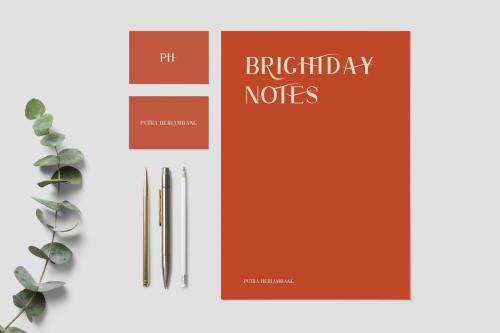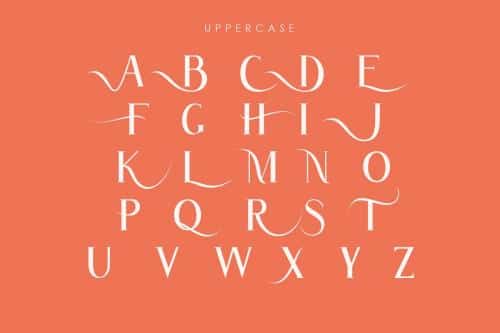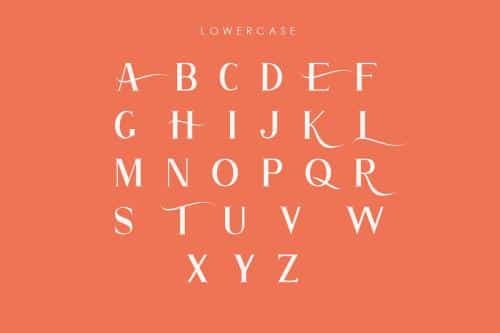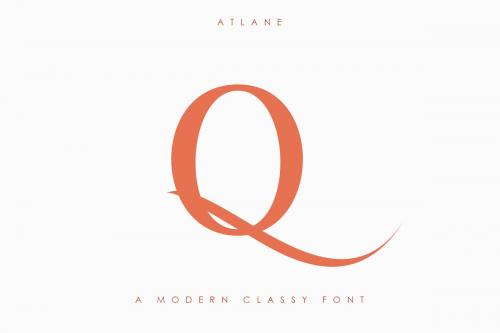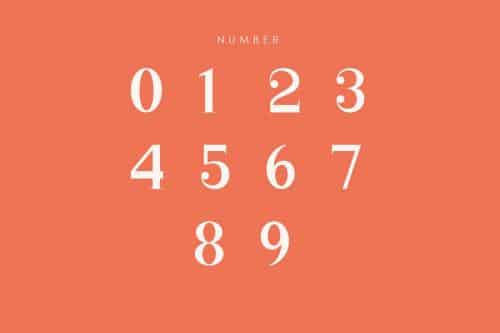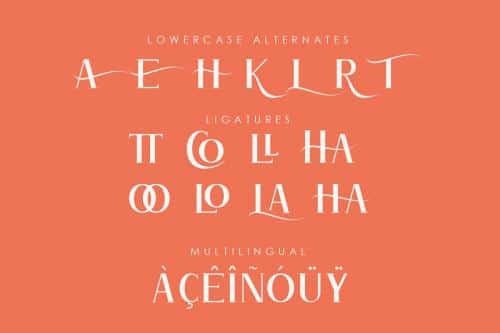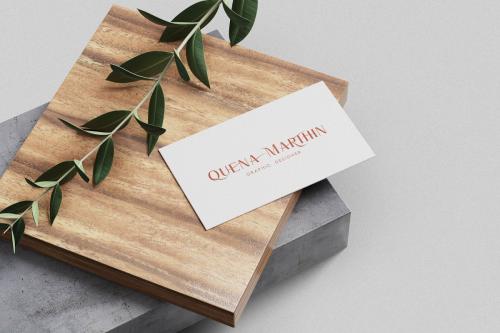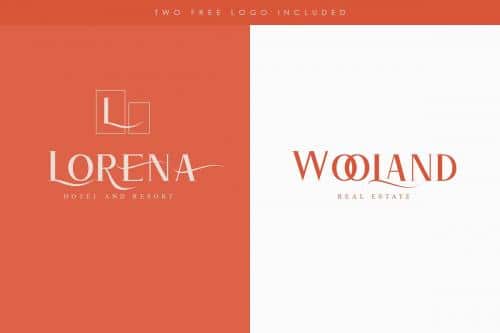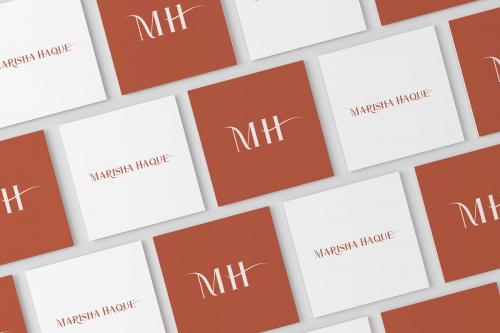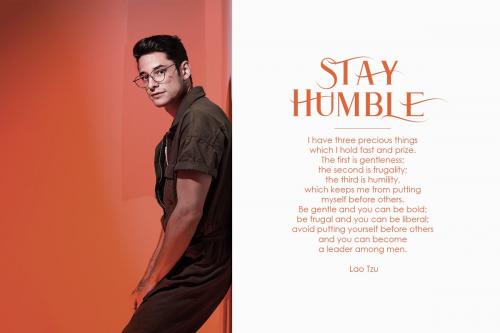
say hi to Atlane a new casual serif font with a modern concept, beautiful swash and ligature and can easily be applied to your designs such as logos, personal branding or others.
- Designer: vanpatelona